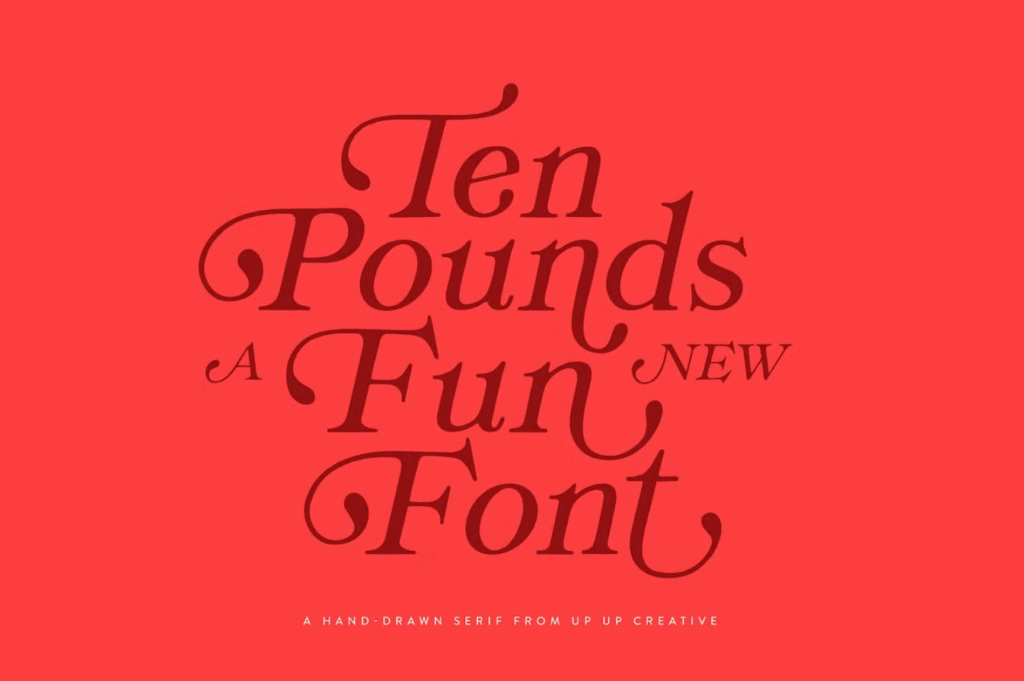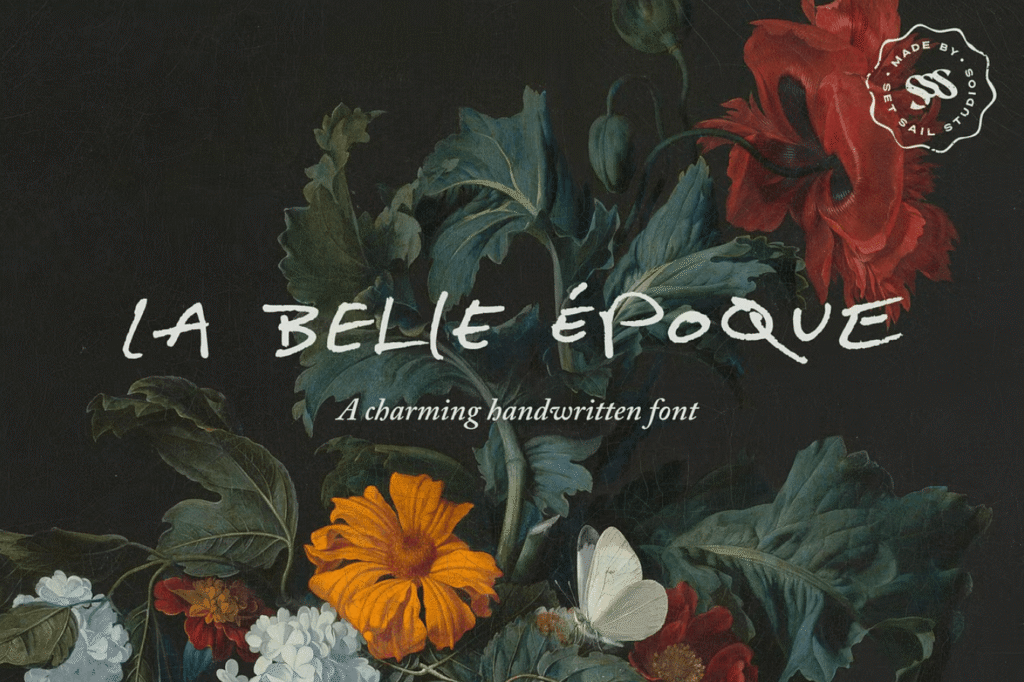
Your website’s font choice speaks volumes about your brand before visitors read a single word. The right typeface can transform a basic product page into a luxury experience or give your entire site the polished, professional feel you’ve been chasing.
Whether you want to elevate your product page or give your website a luxury makeover, these aesthetically pleasing fonts will provide the visual impact you’re looking for. From elegant serifs to playful scripts, you’ll find typefaces that balance beauty with functionality.
38 of the Most Aesthetically Pleasing Fonts for Websites
Serif, sans serif, script, and decorative fonts are the four main types of typefaces you can utilize for your website. This list showcases all four, so you will find what you are looking for.
1. Valerie Angel
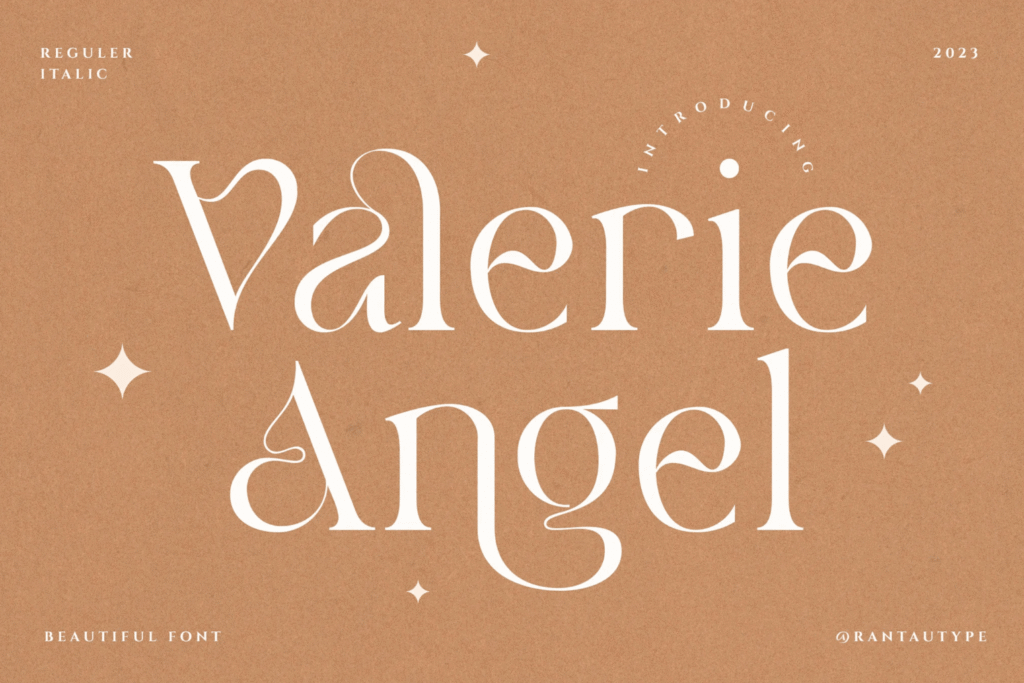
This serif font embraces fun, graceful curves and ligatures for a modern twist on classic decorative fonts. Valerie Angel is one of the most unique aesthetically pleasing fonts we’ve come across. It works beautifully for headlines and branding because it blends sophistication with personality.
2. Pink Crestelle
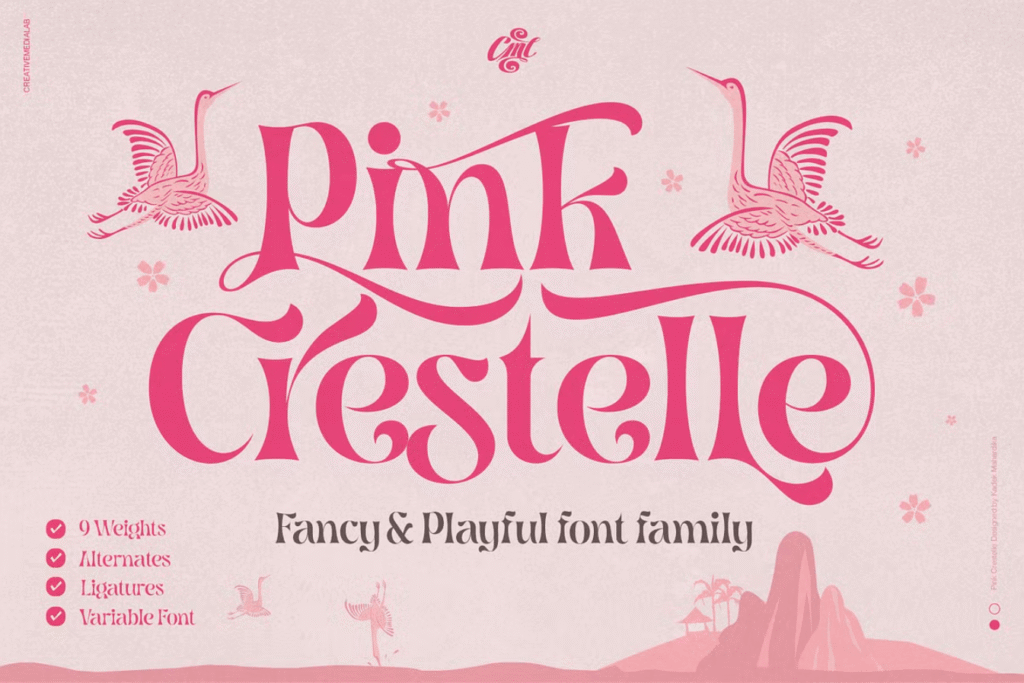
Whimsical, cute, fancy, and playful, Pink Crestelle brings personality to branding and editorial designs. This serif font offers nine weights and variable font options with alternates and ligatures for pull quotes and headlines.
3. Kithara
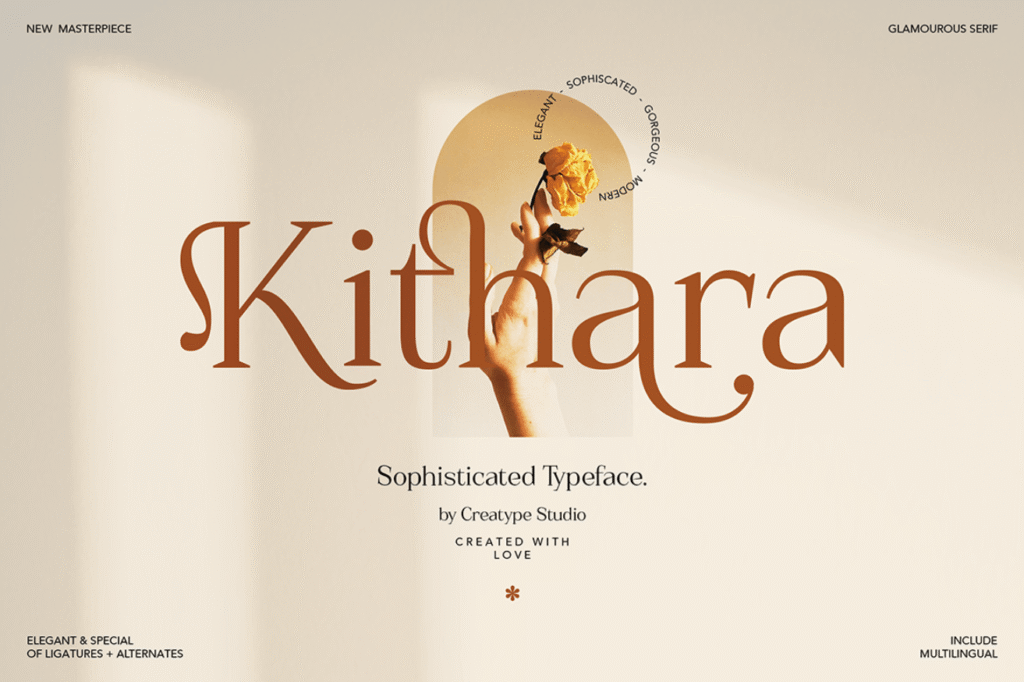
This sophisticated serif typeface exudes glamour and elegance, making it perfect for luxury branding and high-end packaging. With multilingual support, Kithara works beautifully for editorial layouts that require a refined, upscale aesthetic.
4. Baginks
Baginks delivers modern elegance with pretty, classy letterforms that elevate any design. This serif font shines in invitations, branding projects, and logo designs, offering a contemporary yet timeless feel with multilingual capabilities.
5. Amber Dawn
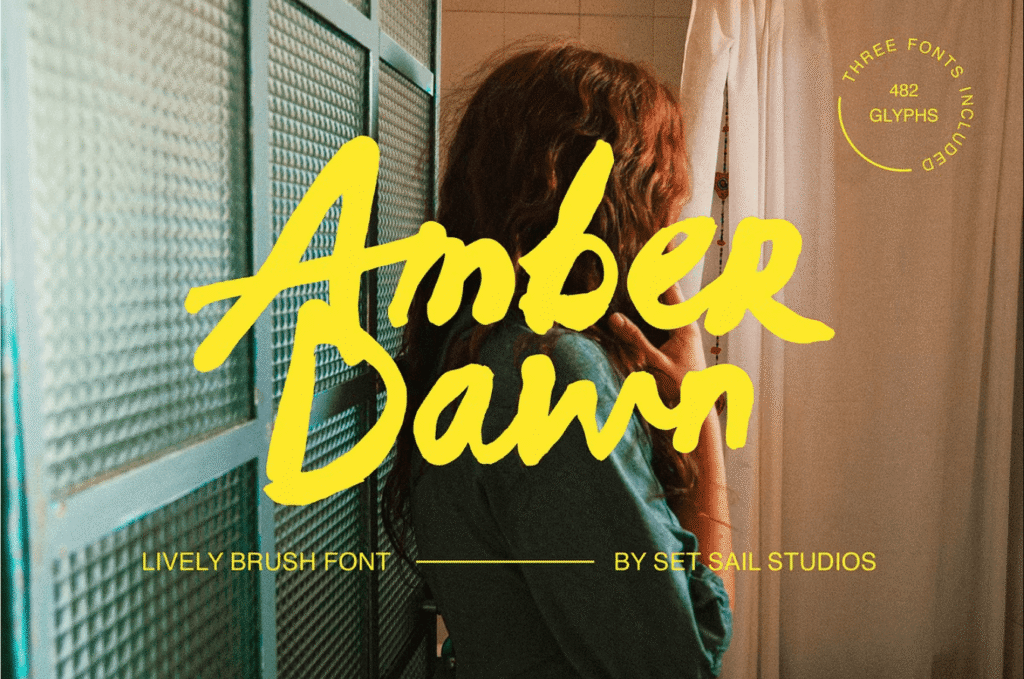
With its brush font style and hand-drawn feel, Amber Dawn creates eye-catching appeal. Perfect for branding clothing, skin care, and wellness brands, it includes variable ligatures, numerals, punctuation, and multilingual support.
6. Blainville
This handwritten script font delivers clean, playful, and romantic vibes with beautiful loops and accents. Blainville excels at adding a handcrafted feel to product and “About Us” pages, helping visitors feel an authentic connection.
7. Cherly Blossom
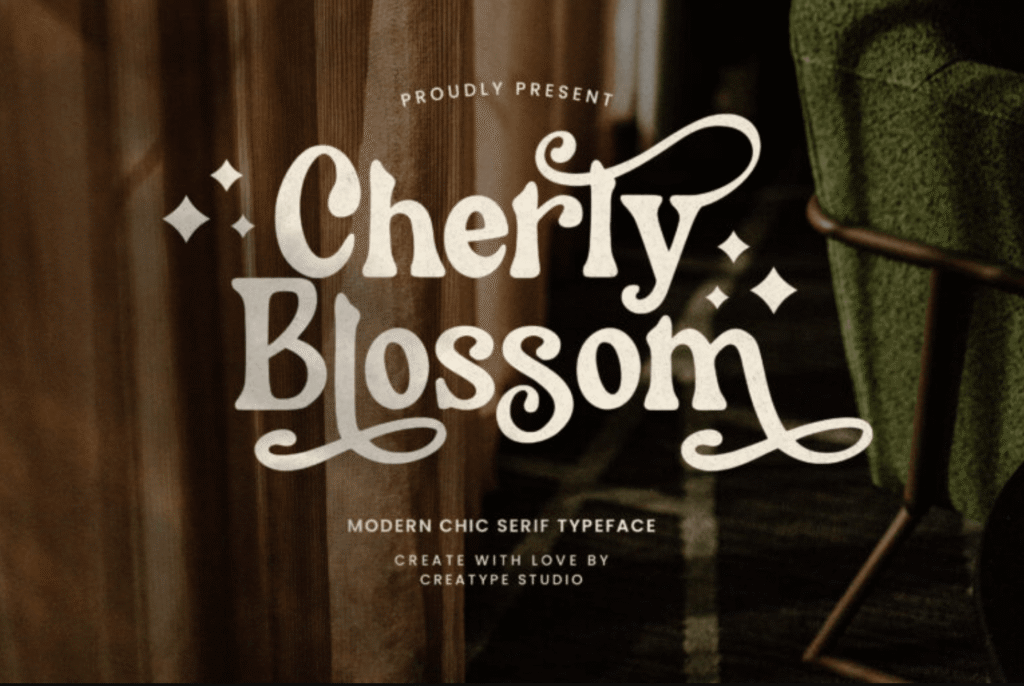
Cherly Blossom brings a retro modern vibe with a bold, elegant twist that commands attention. This serif typeface excels in website headers, branding applications, and logos where you need personality with polish. This set is complete with multilingual support.
8. Darling
Darling is a chic, luxury italic serif font reminiscent of vintage advertisements. Perfect for editorial design, logos, and branding for fashion brands and photographers, it includes alternative characters, punctuation, numbers, symbols, and multilingual support.
9. Vailery
As a formal serif typeface, Vailery offers the sophistication and readability you need for stylistic webpage fonts. Its classic proportions make it an excellent choice for traditional elegance in headlines or body copy.
10. Lucky Fish
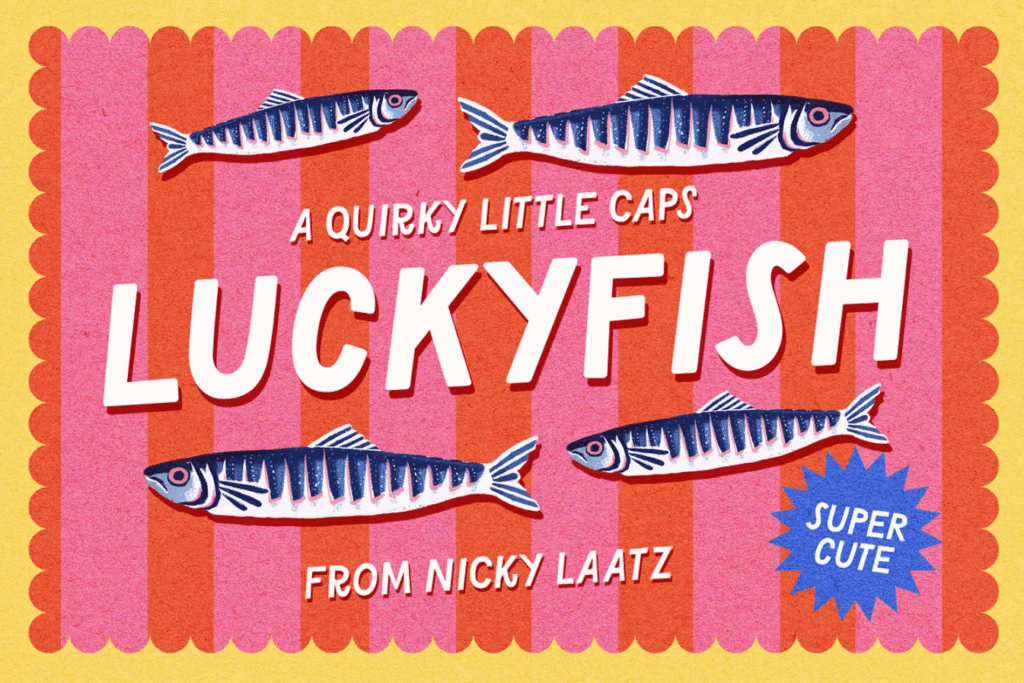
Lucky Fish is a playful all-caps font family that brings energy and personality to designs. With six styles to choose from and multilingual support, it’s one of the best aesthetically pleasing fonts for bold websites, cheeky branding, and fun social media posts.
11. Boruna
This modern, high-contrast serif typeface strikes the perfect balance between beauty and legibility. Boruna’s clean structure makes it readable at smaller sizes. You can use it for pull-quotes within body text while maintaining visual interest.
12. Bumerang
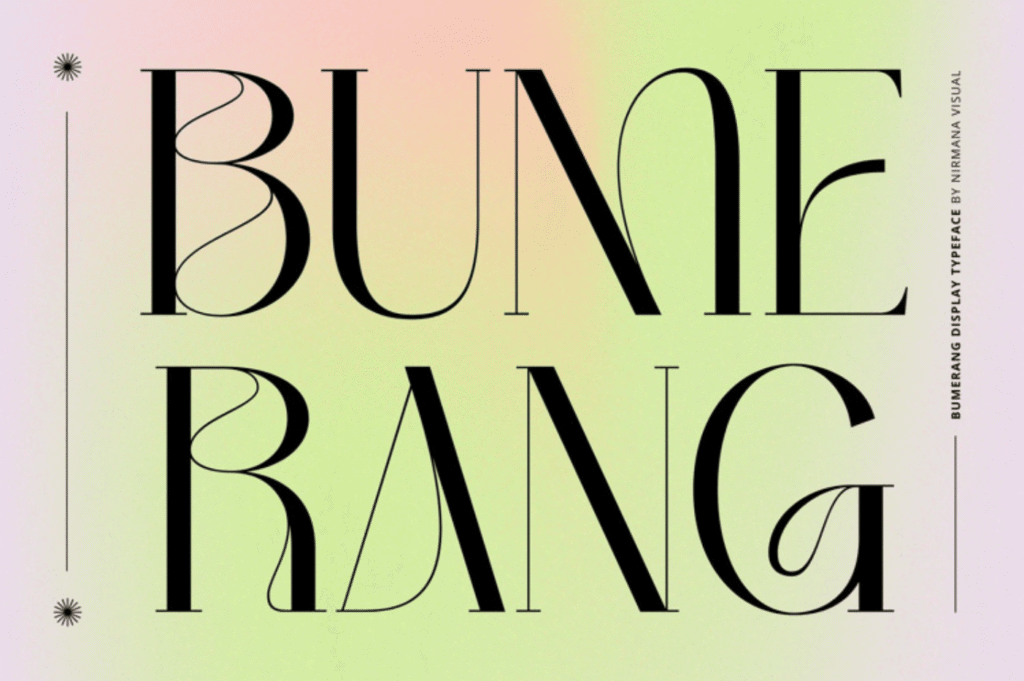
Inspired by art deco, Bumerang is an artsy, beautiful, and intricate serif that makes statements. This font is ideal for art and design businesses looking to make headings and logos stand out with vintage-inspired sophistication.
13. Leuthikline
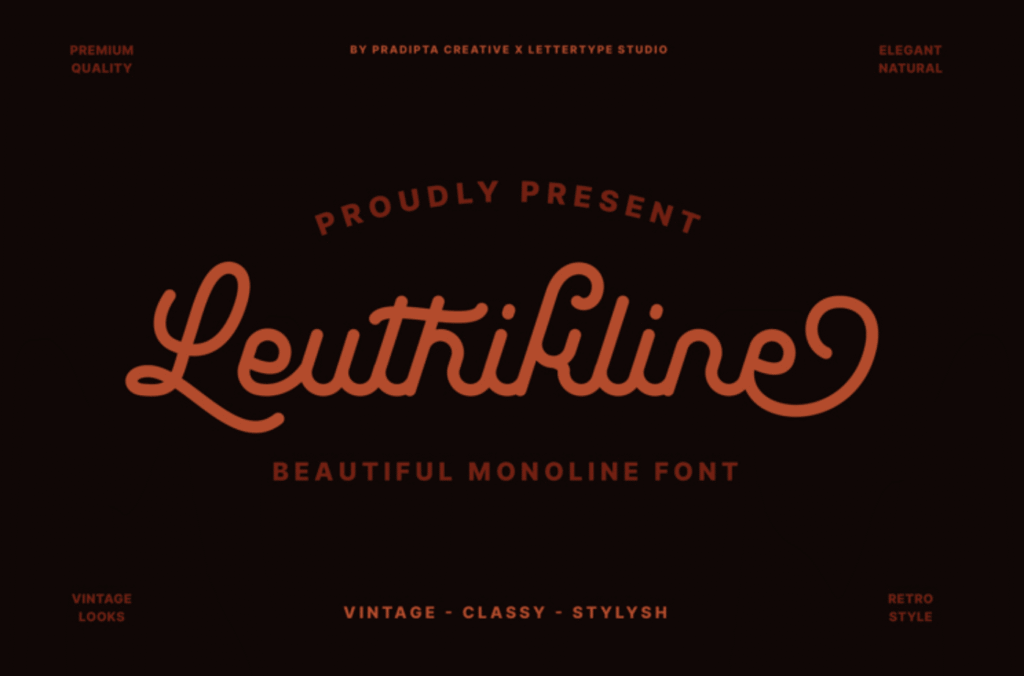
This beautiful monoline font delivers a classy vintage look with stylish appeal. Perfect for signage, invitations, and branding, Leuthikline includes numerals, punctuation, and multilingual support for comprehensive design flexibility.
14. Shefian
Shefian offers modern, minimalistic elegance with exceptional legibility at smaller sizes. This serif font works perfectly for captions and pull quotes. You can make your website more beautiful without sacrificing readability.
15. Calendra
Calendra is a stylized decorative display font with timeless appeal and graceful curves. This typeface works beautifully for pull-quotes, drop caps, logotypes, and social media posts where you need distinctive character.
16. Airy Restoration
This classy yet modern serif font is stylish and simple with expert use of sharp lines and curves. Airy Restoration makes each letter stand out, including punctuation, numbers, and variable alternates and ligatures.
Shape Your Brand’s Identity With the Right Typefaces